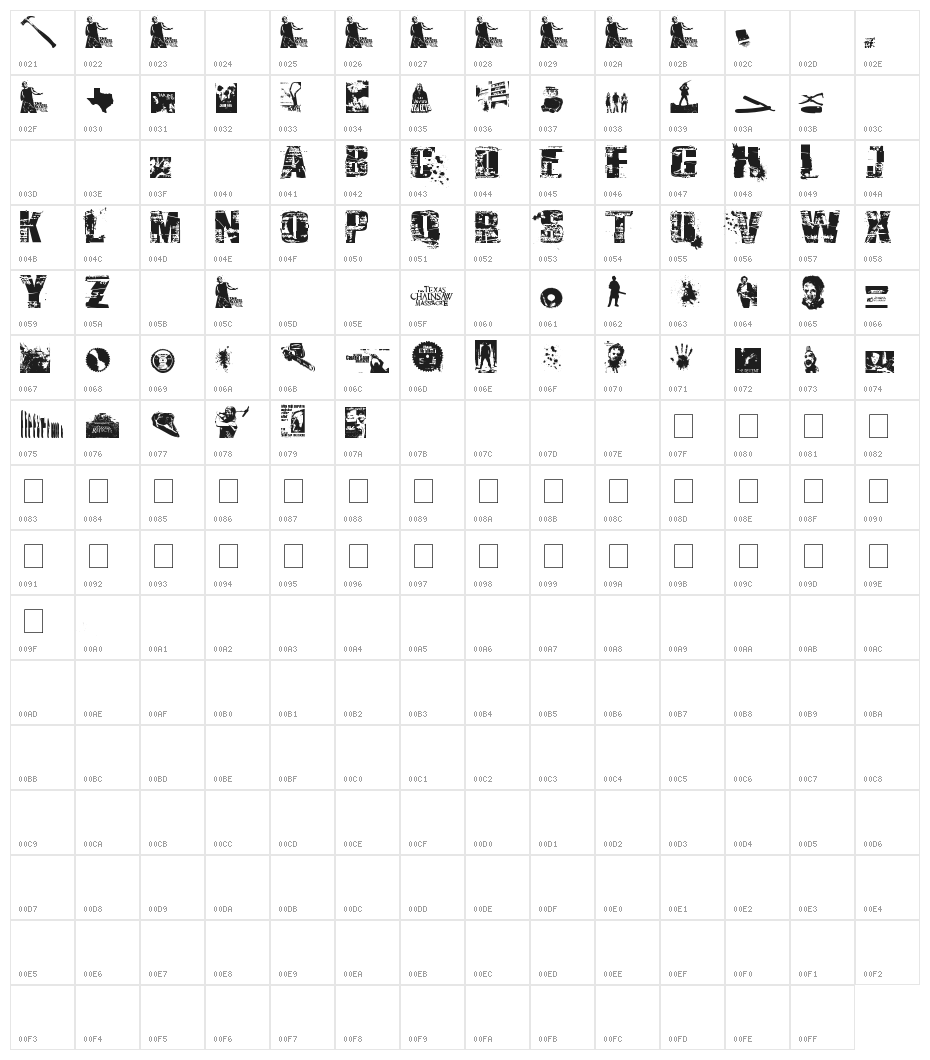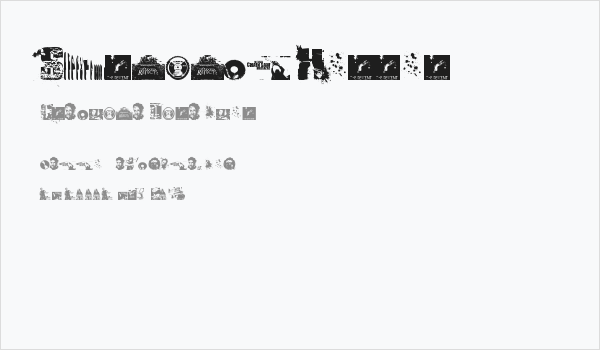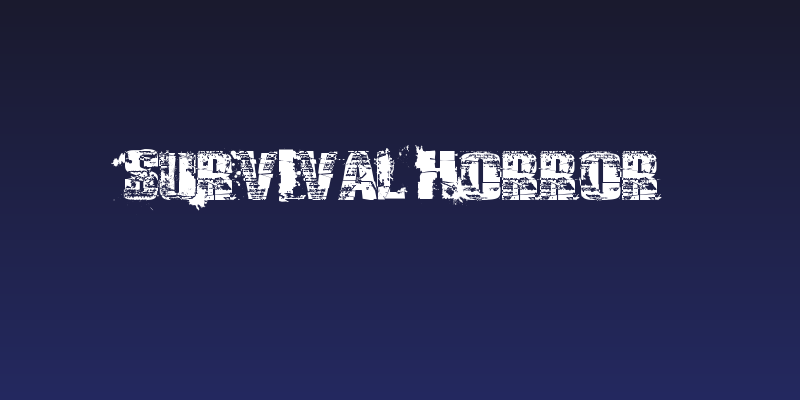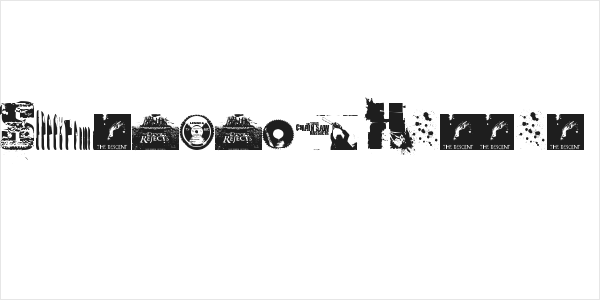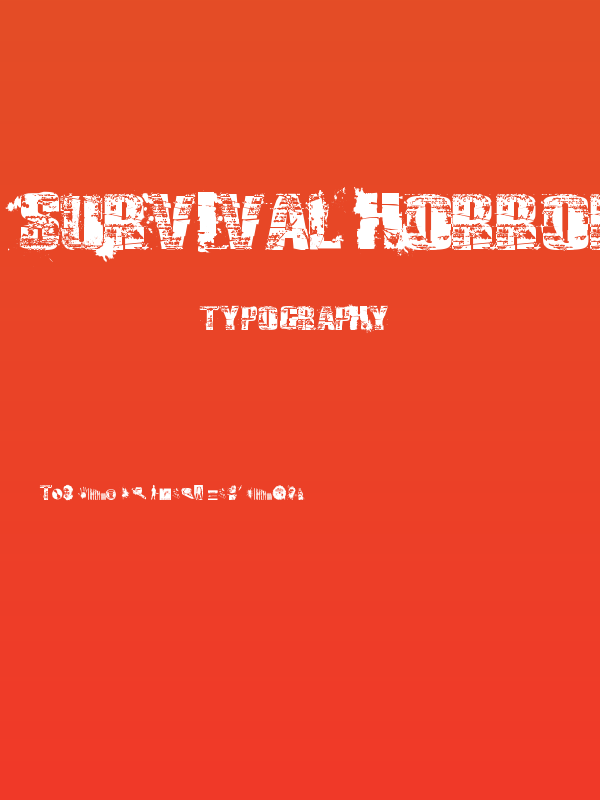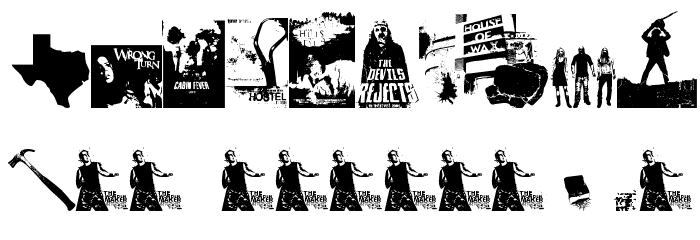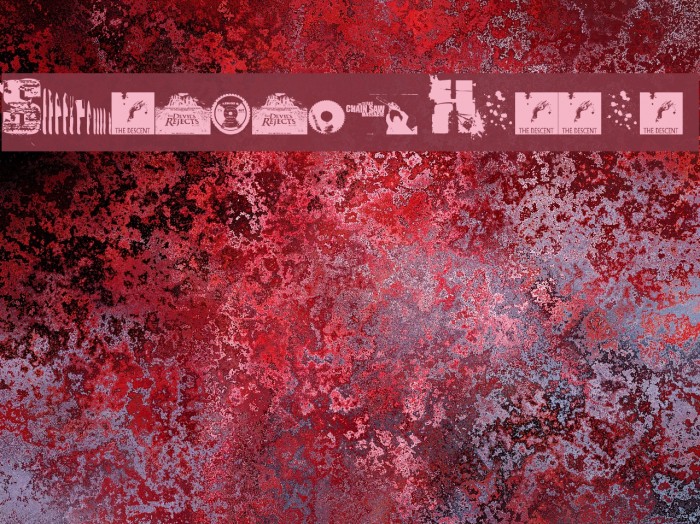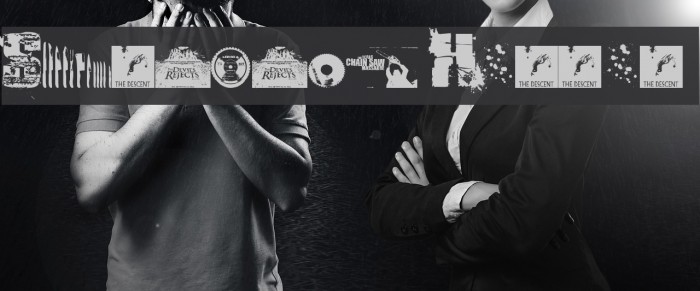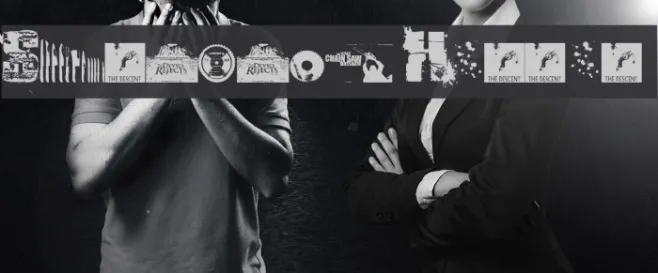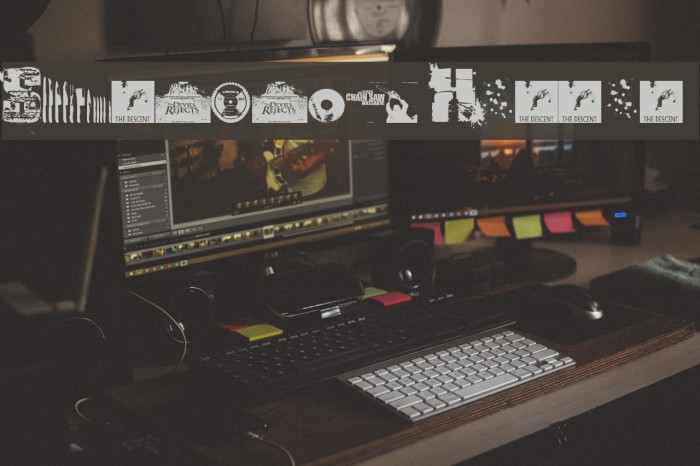
Survival Horror Font
Survival Horror Description
This font embodies a gritty, distressed aesthetic, reminiscent of survival horror themes. Each letter appears as if it has been weathered and worn, with rough edges and a textured appearance that suggests decay or damage. The bold, uppercase letters are designed to evoke a sense of urgency and fear, making them perfect for horror-themed projects. The font's chaotic and fragmented style adds to its unsettling nature, creating a visual impact that is both striking and memorable. This design is ideal for capturing the essence of horror, suspense, and thriller genres, providing a raw and edgy look that stands out.